When you’re selecting a font for your design project, understanding the various font styles available is crucial in choosing the right one. Each style has unique characteristics that can influence the mood, message, and visual appeal of your design. Here’s a detailed guide to different font styles:
Sans Serif
A serif font is a typeface that features small lines or strokes, known as “serifs,” attached to the ends of larger strokes in letters. These decorative extensions enhance readability, especially in print. Common serif fonts include Salmond and Shawkind Font, often used for formal and traditional designs.
SERIF
Serif fonts feature small lines or “feet” at the ends of letters, giving them an elegant and traditional feel. They are frequently used in print, such as in books and newspapers. Romelu Vomelu and Humble Nostalgia are classic serif fonts.
Slab Serif
Slab serif fonts are a type of serif font with thick, block-like serifs. They convey strength and stability, often used in designs that need a bold or masculine touch.
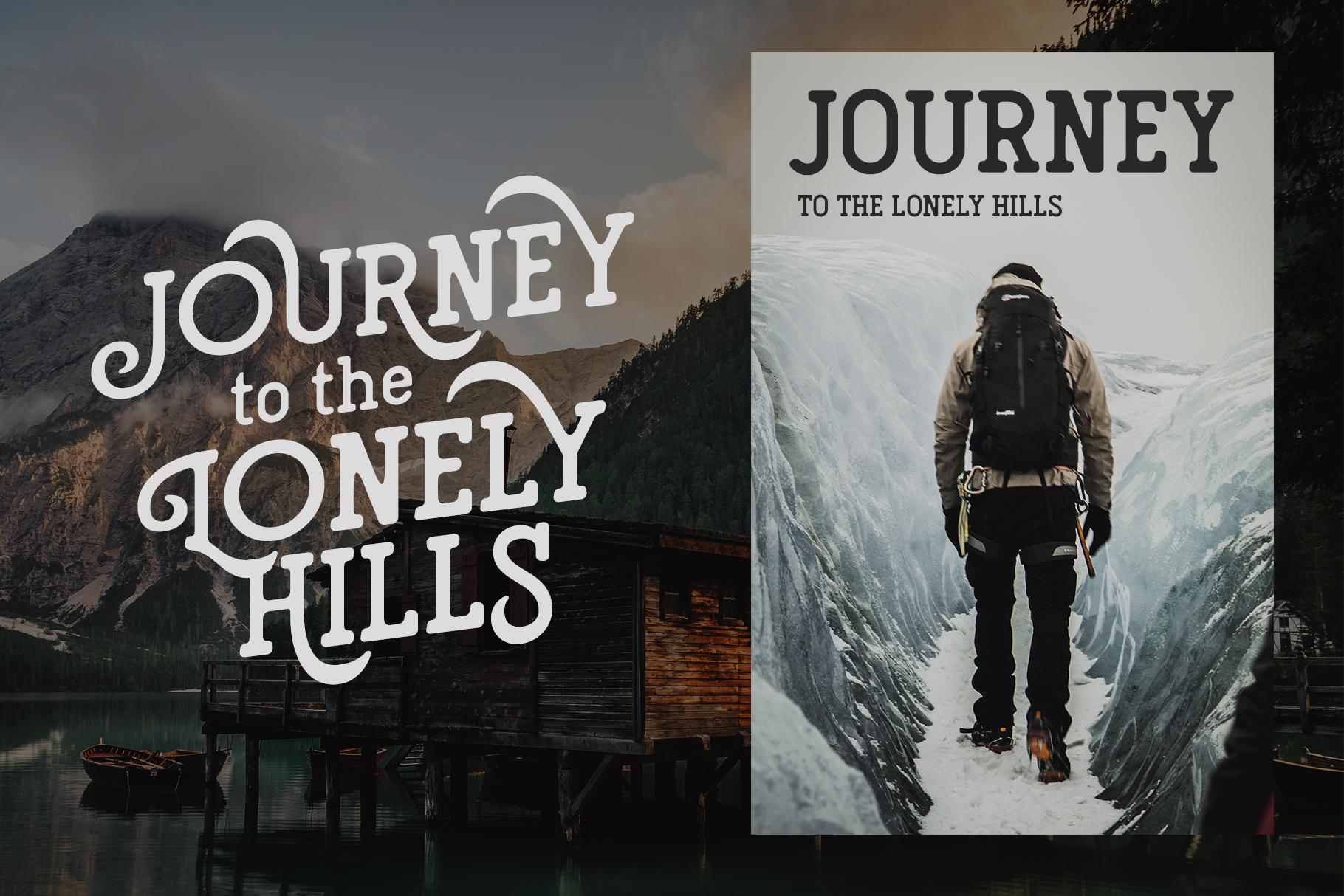
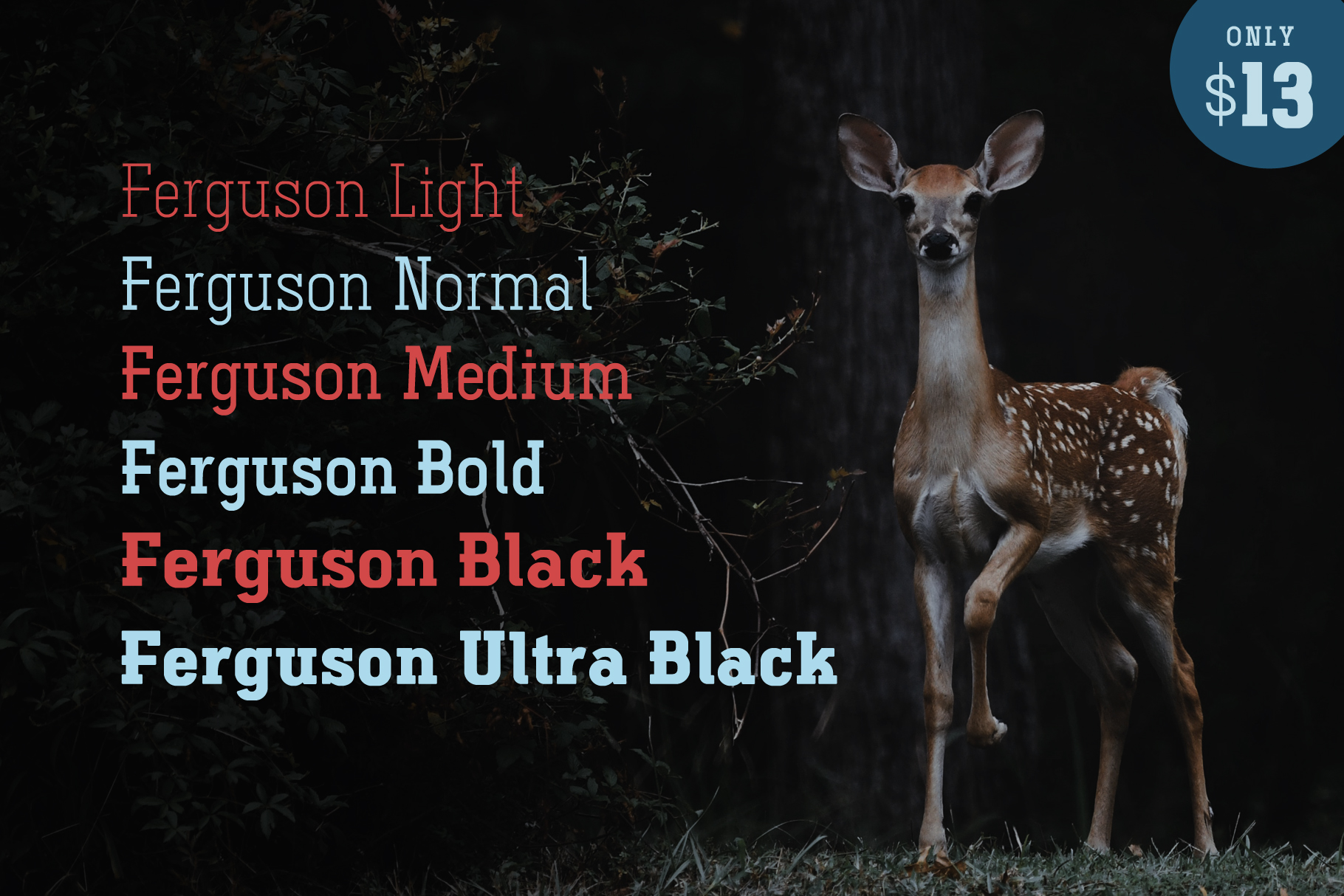
Western
Western fonts are inspired by the typography used in cowboy-themed and American Western designs. They usually have strong, decorative elements that give them a bold, masculine feel.
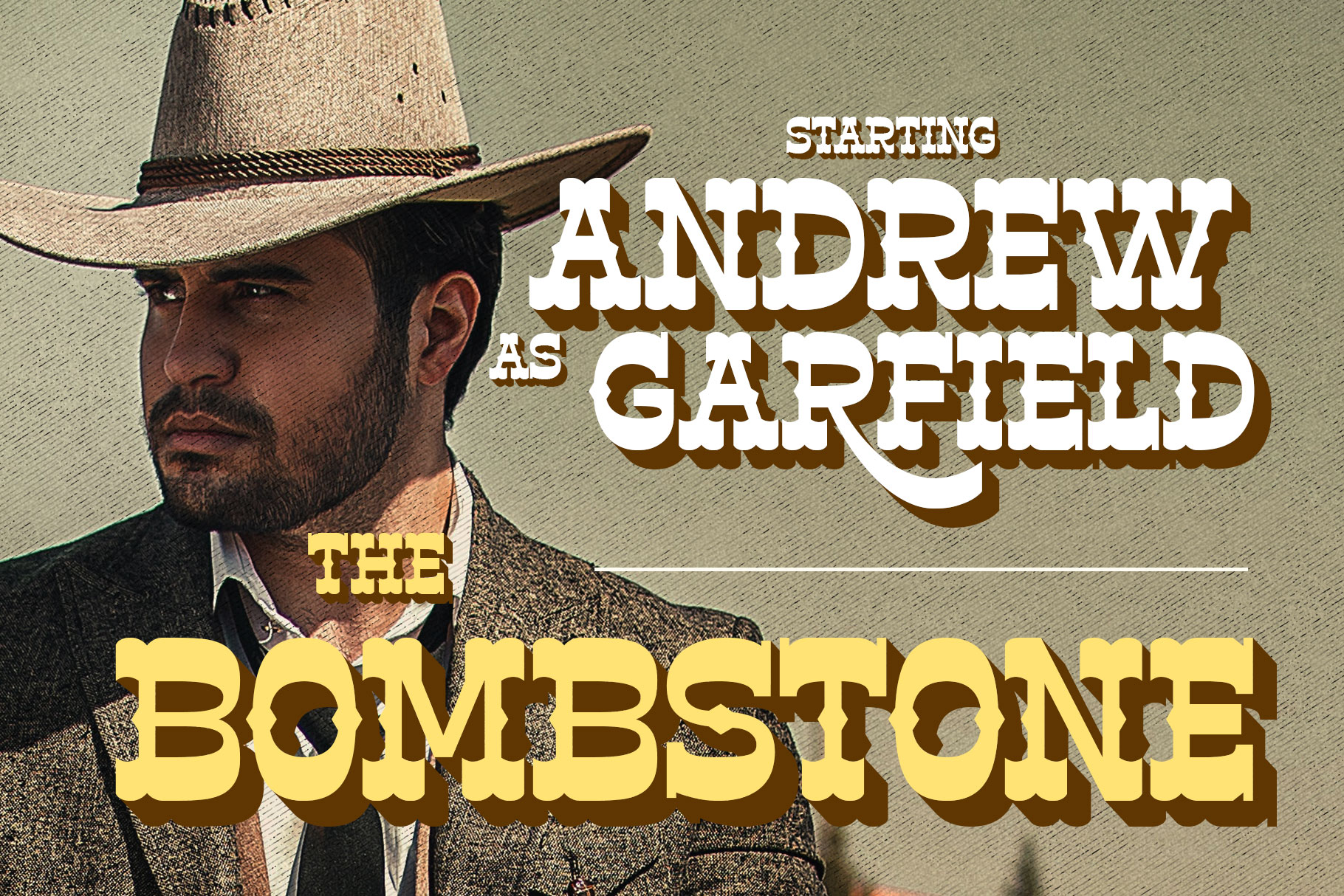
Monoline
Monoline fonts are a type of script where the line thickness remains consistent throughout. They are ideal for designs requiring simplicity and readability.
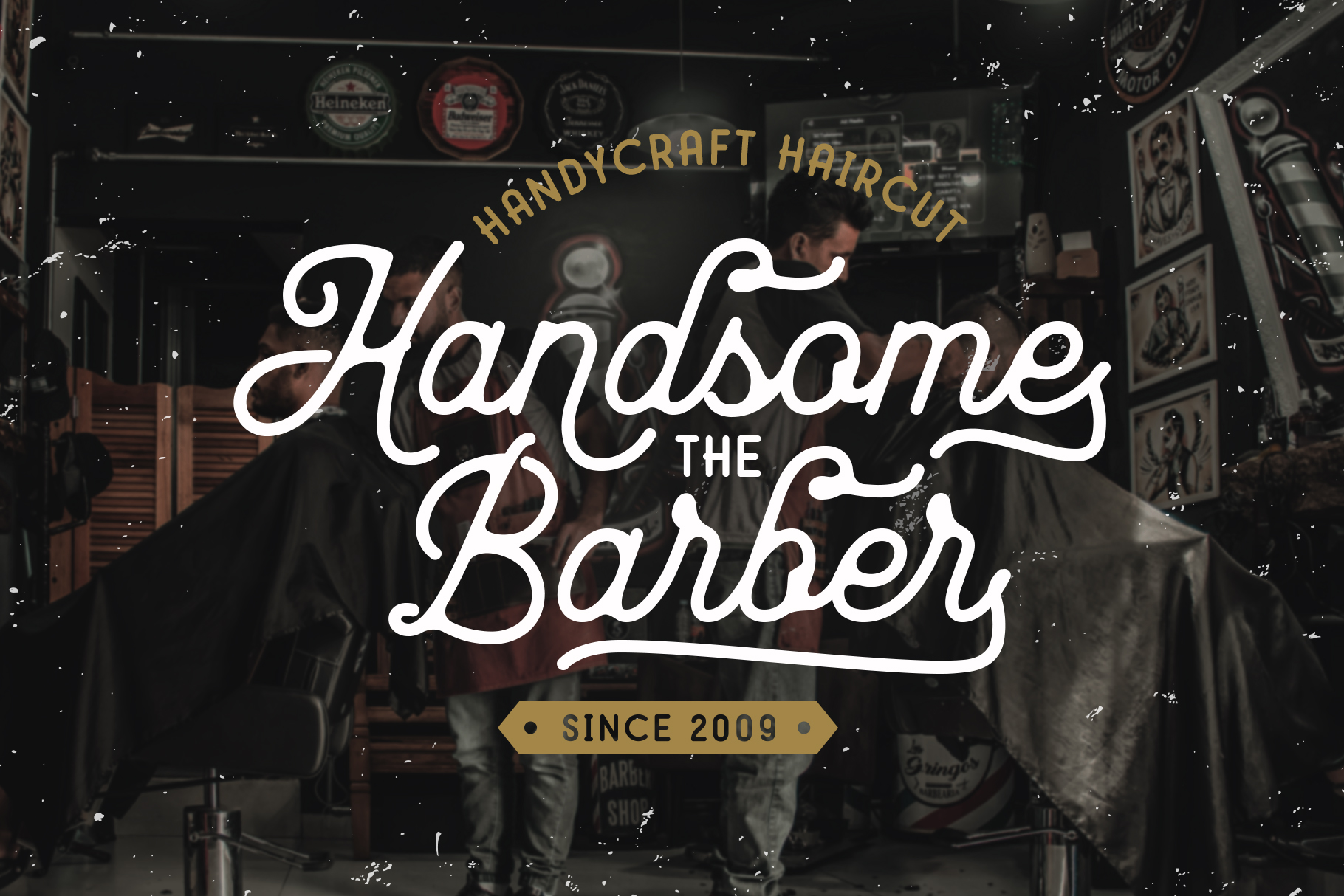
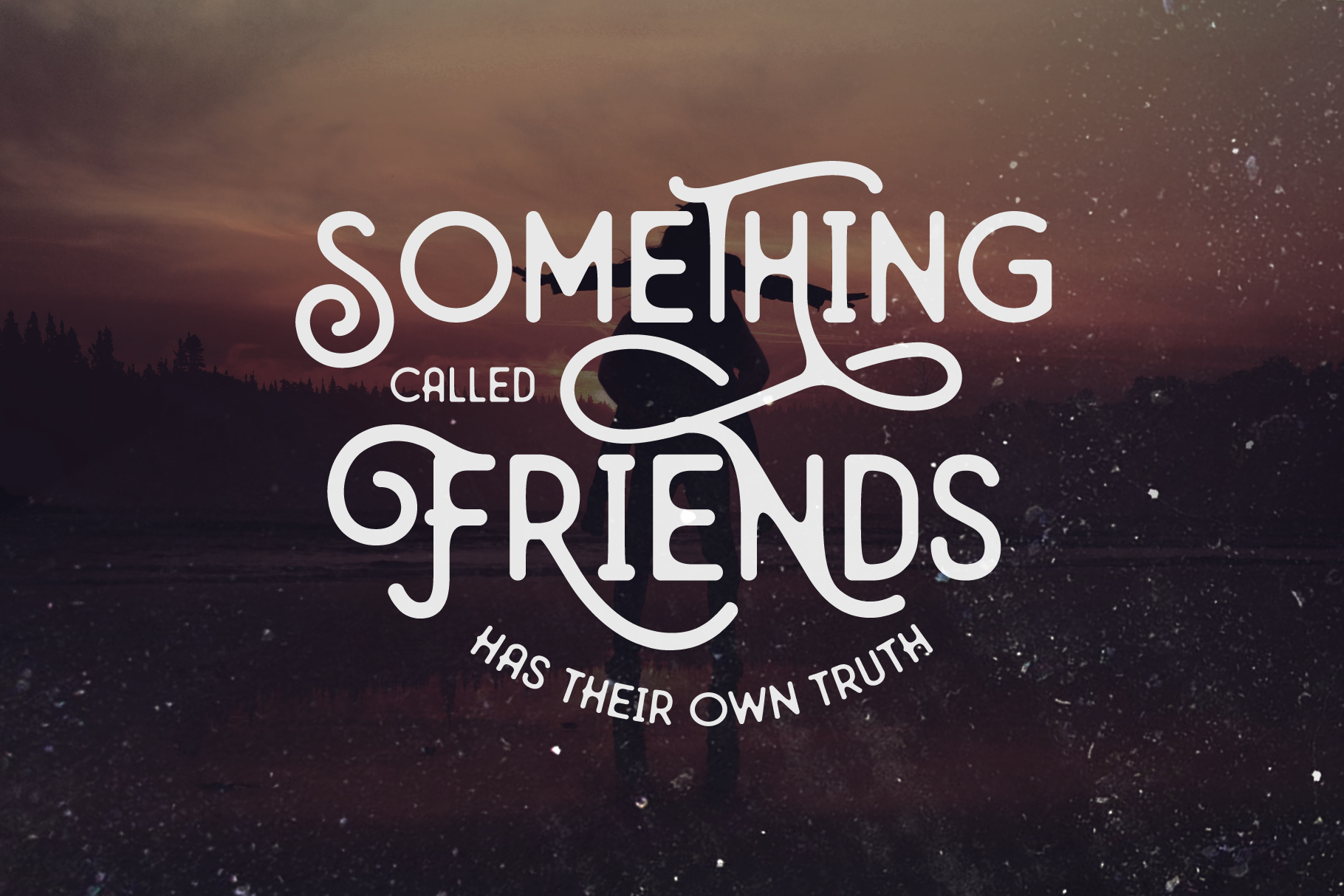
Condensed
A condensed font is a typeface with characters that are narrower than standard fonts, reducing horizontal space between letters. This design maximizes space while maintaining legibility, making it useful in situations like headlines, posters, or tight layouts where fitting more text is important without reducing font size.
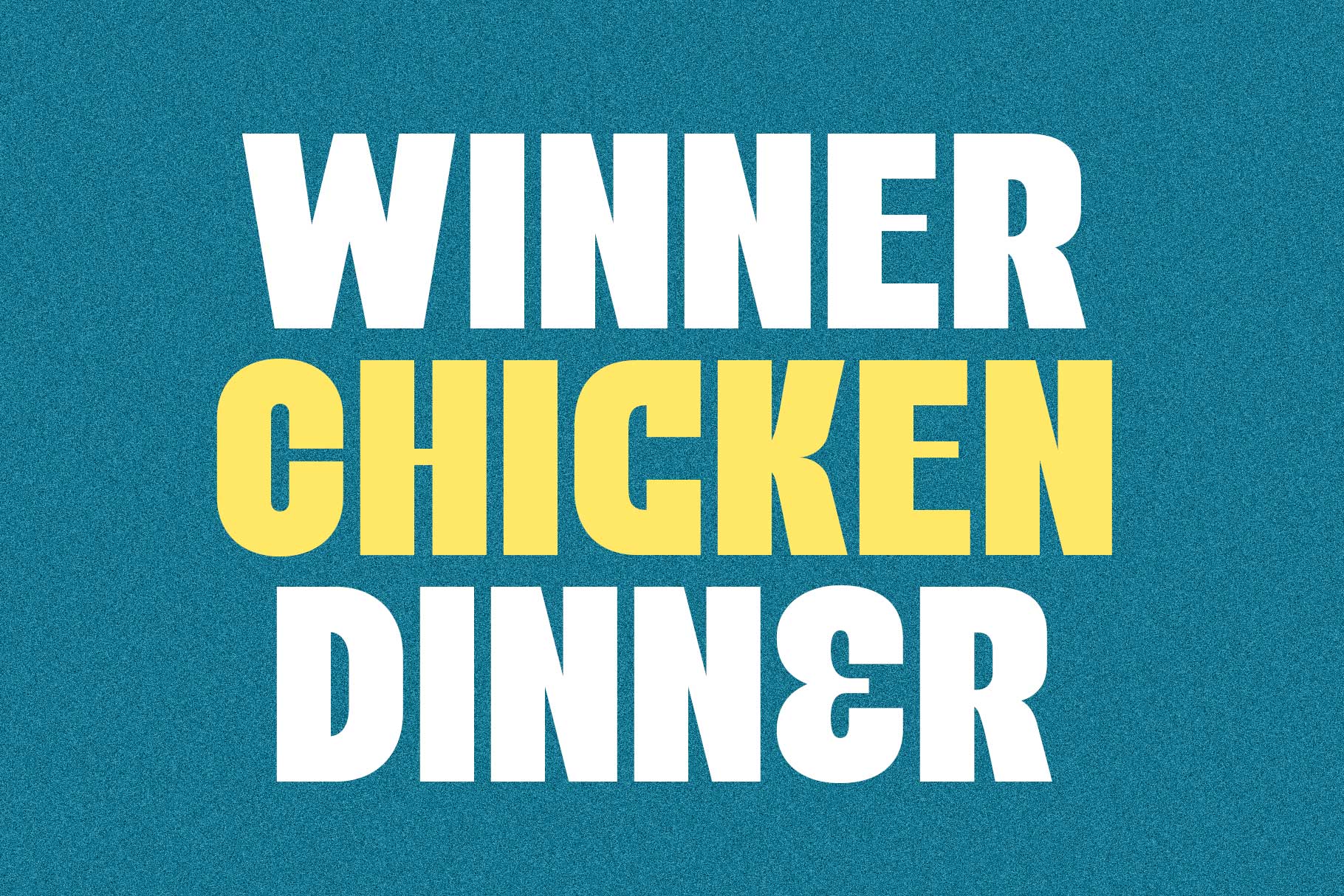
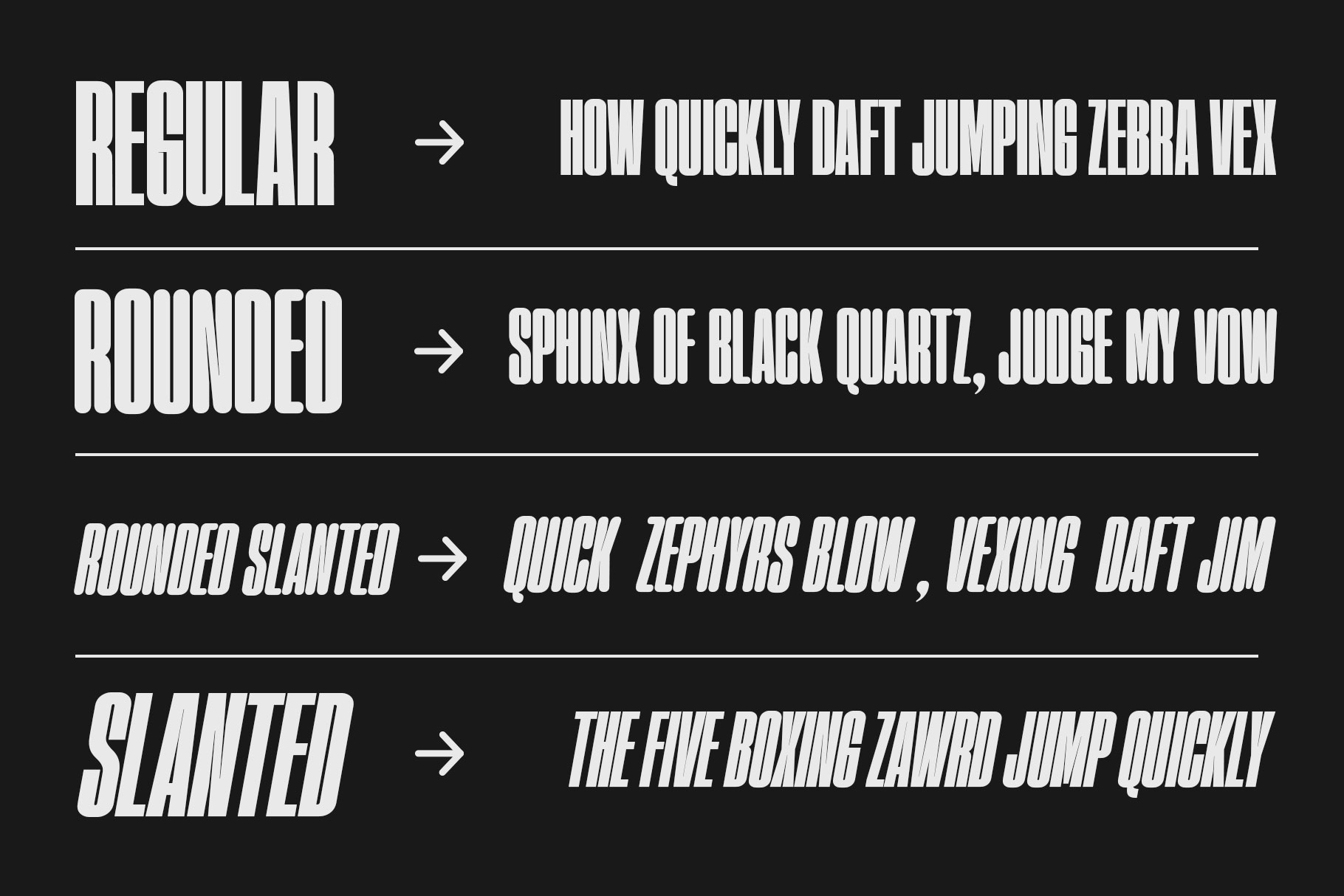
Fat/Bold Font
Fat or bold fonts have very thick lines, creating a strong and striking visual effect. These fonts are often used to draw attention to the main text in a design.
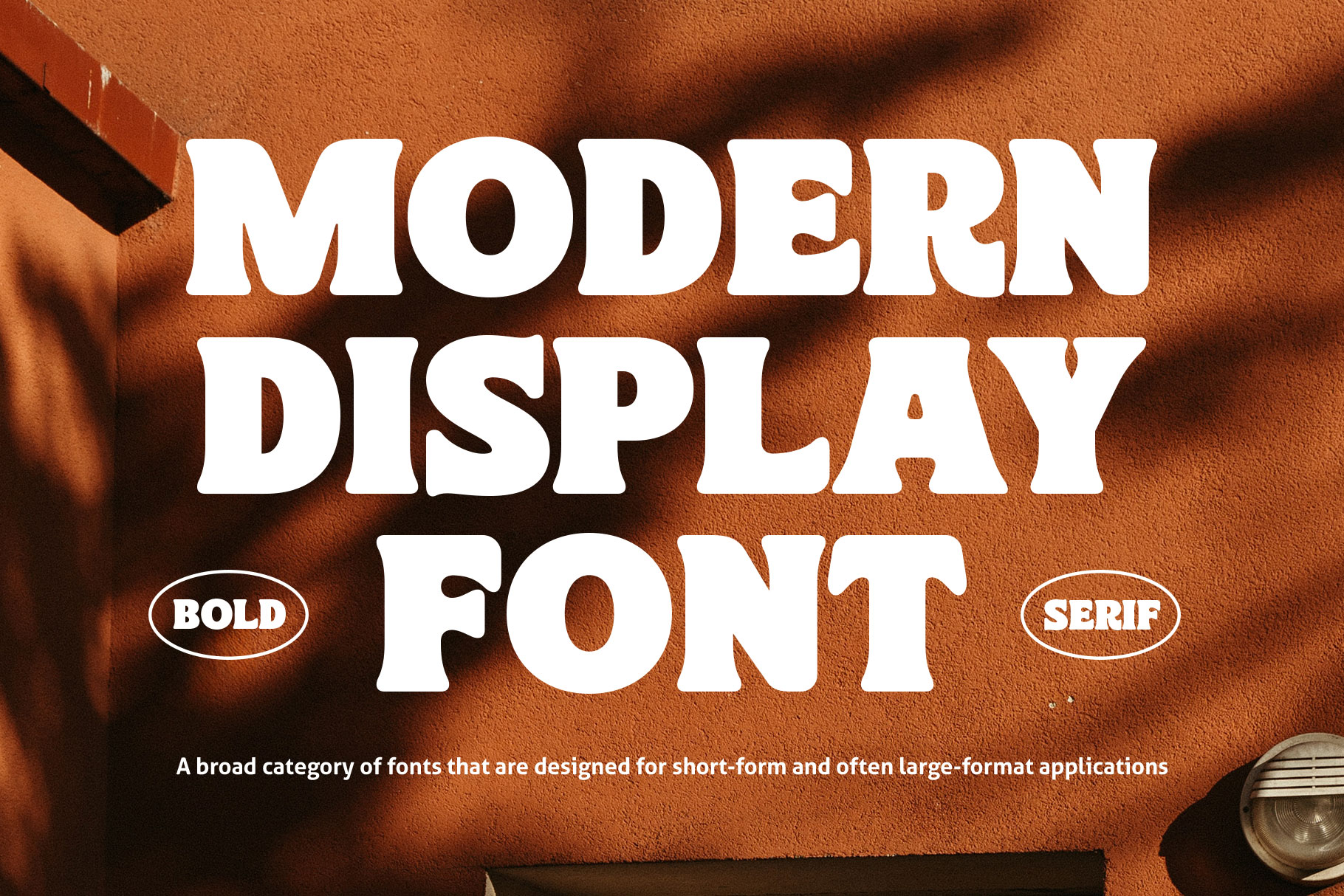
Futuristic
Futuristic fonts have sleek, modern designs, often inspired by technology or science fiction. They are frequently used in projects related to the future or high-tech themes.
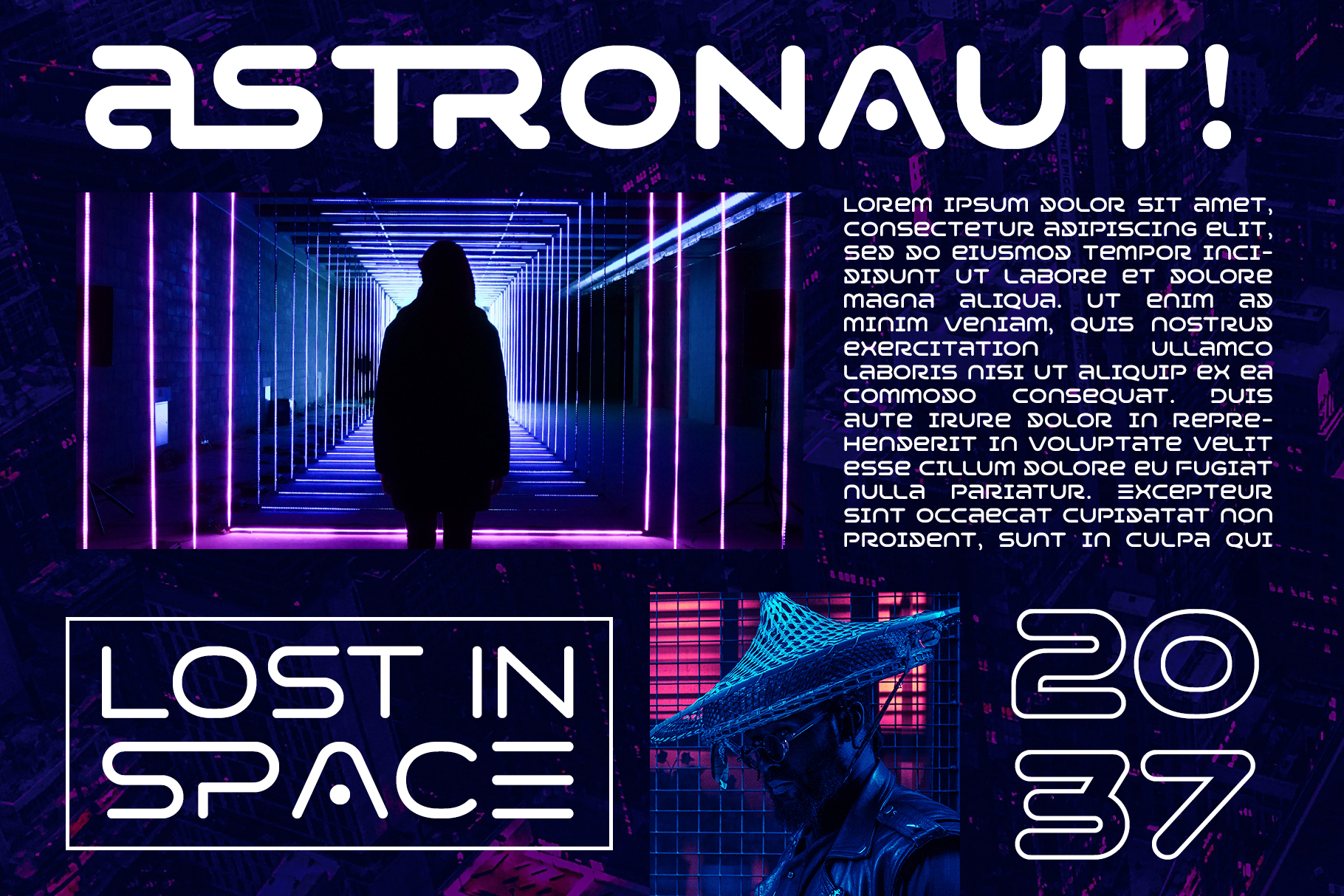
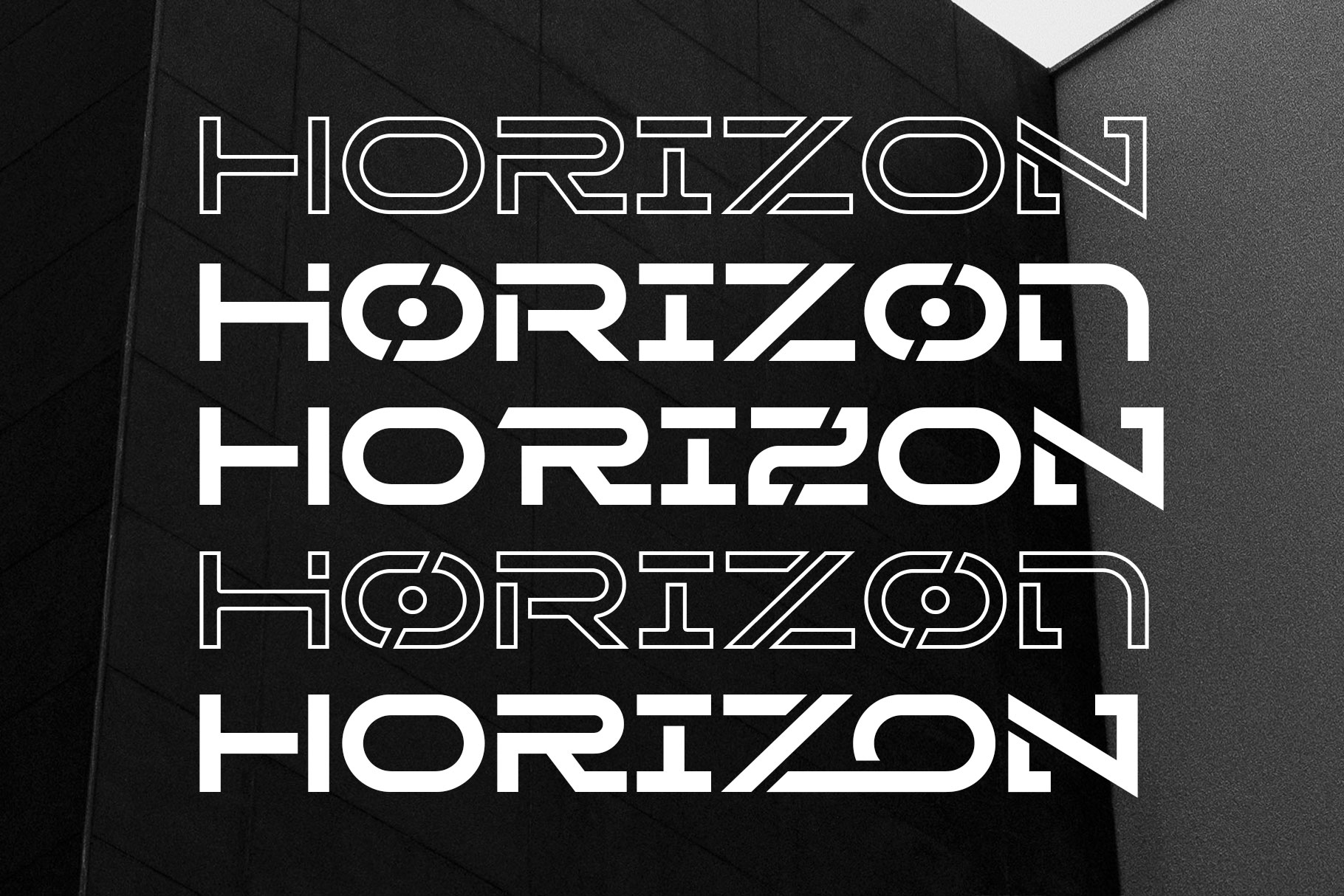
Minimalist
A minimalist font emphasizes simplicity and clarity, using clean lines, minimal decorative elements, and a focus on readability. With geometric shapes and uniform strokes, these fonts convey a modern, sleek aesthetic. They are often used in branding and design to create a professional, distraction-free look, aligning with the “less is more” principle.
Sporty
A sporty font is a typeface designed to evoke energy, movement, and athleticism, often used in sports-related branding, jerseys, and promotional materials. It typically features bold, dynamic lines, sharp edges, and sometimes italicized or slanted letterforms to convey speed and action. Sporty fonts aim to capture the excitement and competitive spirit of athletic activities.
Monospaced
A monospaced font is a type of typeface where each character occupies the same amount of horizontal space, regardless of its width. This contrasts with proportional fonts, where letters vary in width. Monospaced fonts are commonly used in programming, coding, and text editors for their alignment clarity.
Expanded Font
An expanded font is a typeface with wider character proportions than standard fonts, giving each letter more horizontal space. This makes the text appear stretched or elongated. Expanded fonts are often used for emphasis, in headlines, logos, or designs where boldness and impact are desired, enhancing readability and visual presence at larger sizes.
Understanding these different font styles can help you choose the right one for your design project, ensuring that your message is delivered in the most effective and visually appealing way. Each font type has its own strengths and uniqueness that you can leverage to create memorable designs.